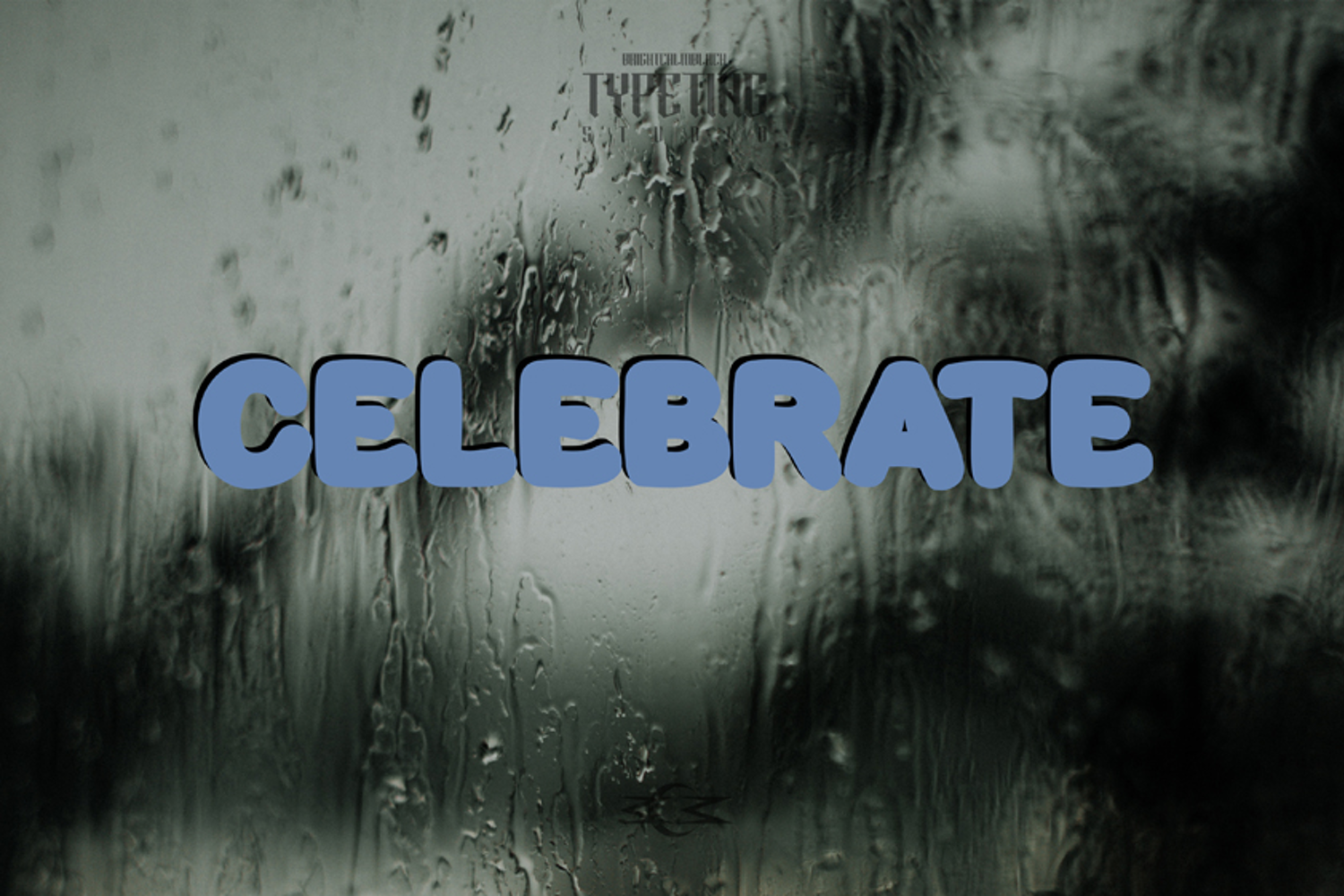
Celebrate
This bold, rounded, and fun font gives a cheerful and strong impression, suitable for logos, posters, packaging, and even interesting digital content.